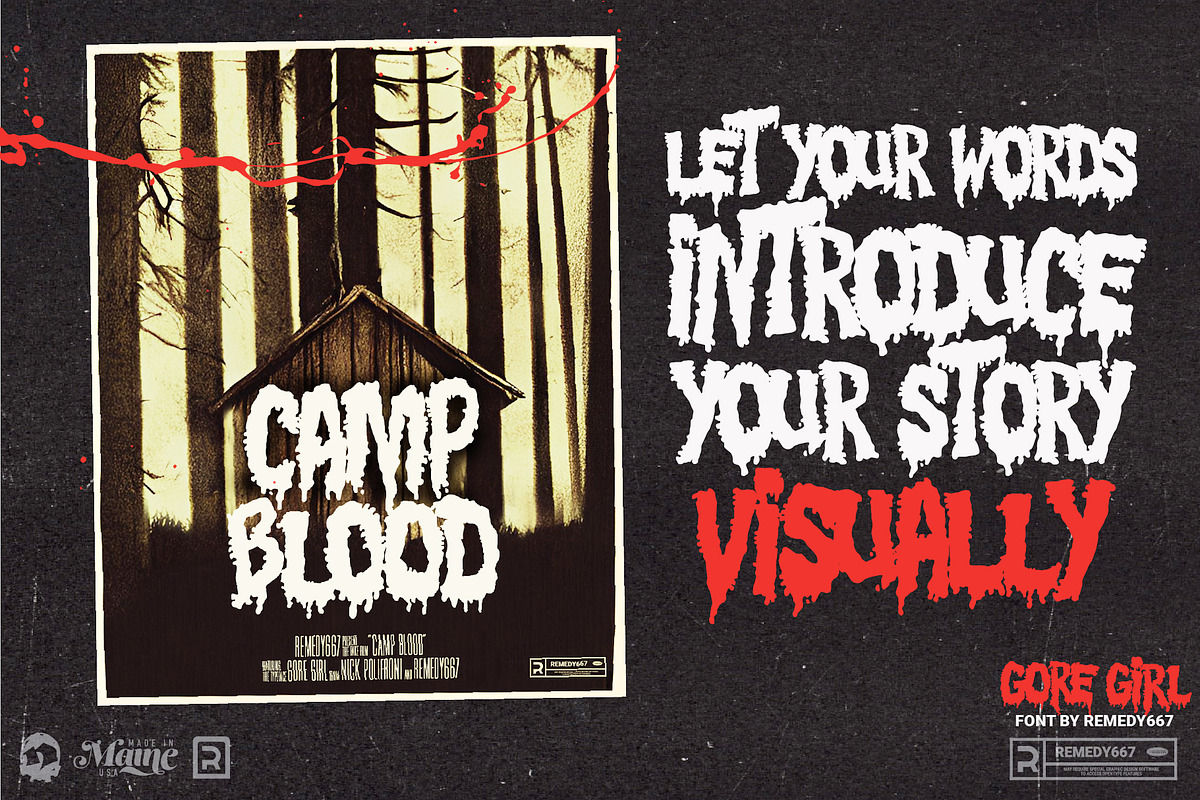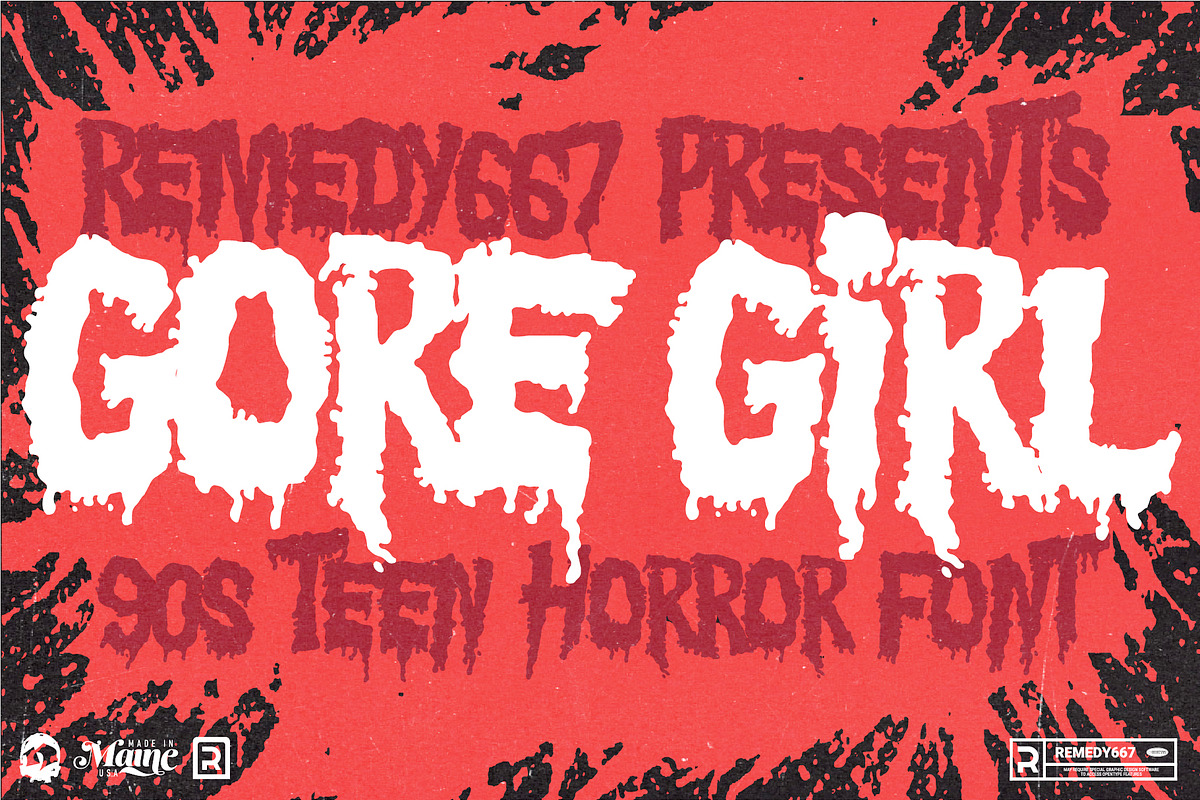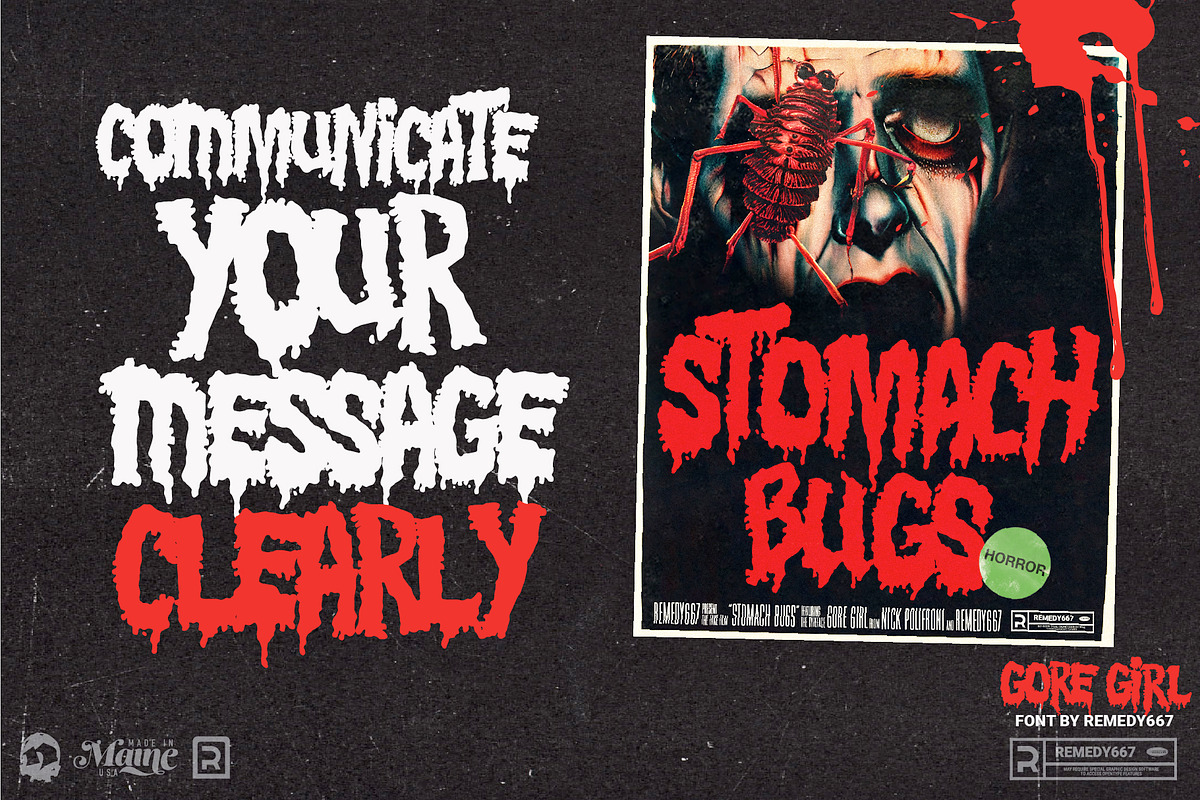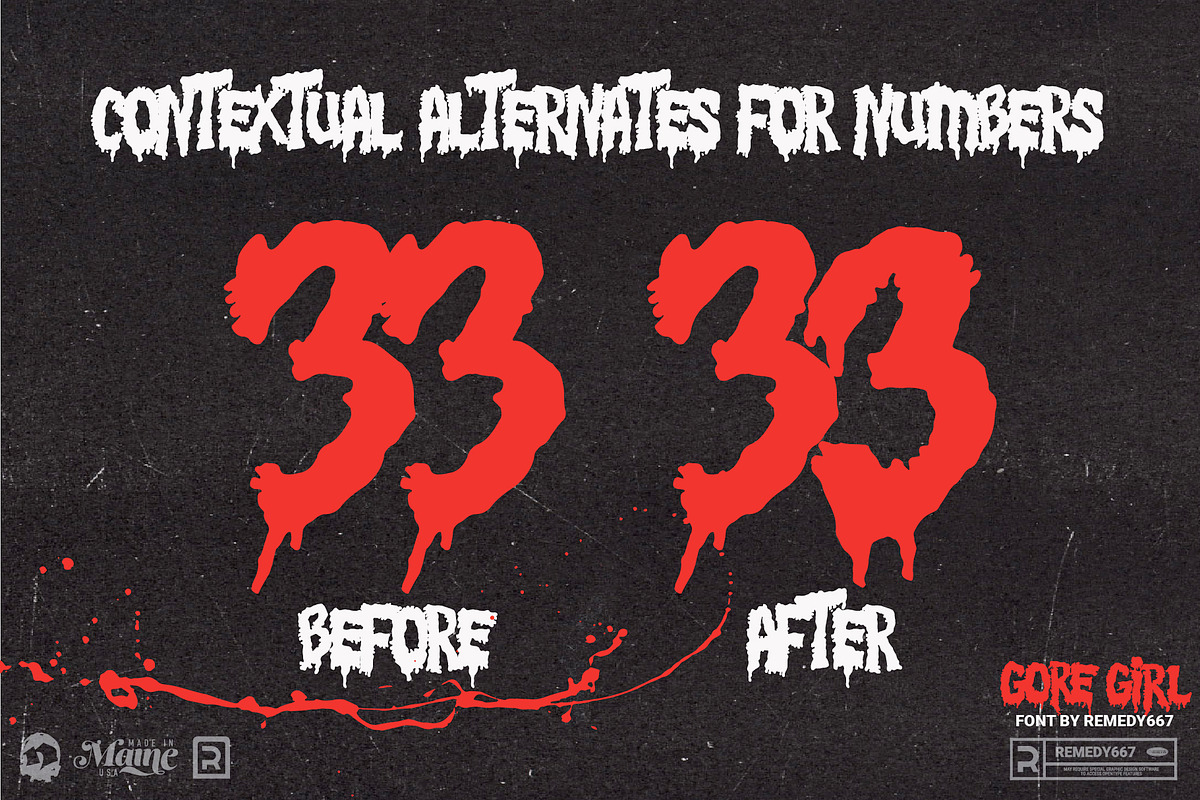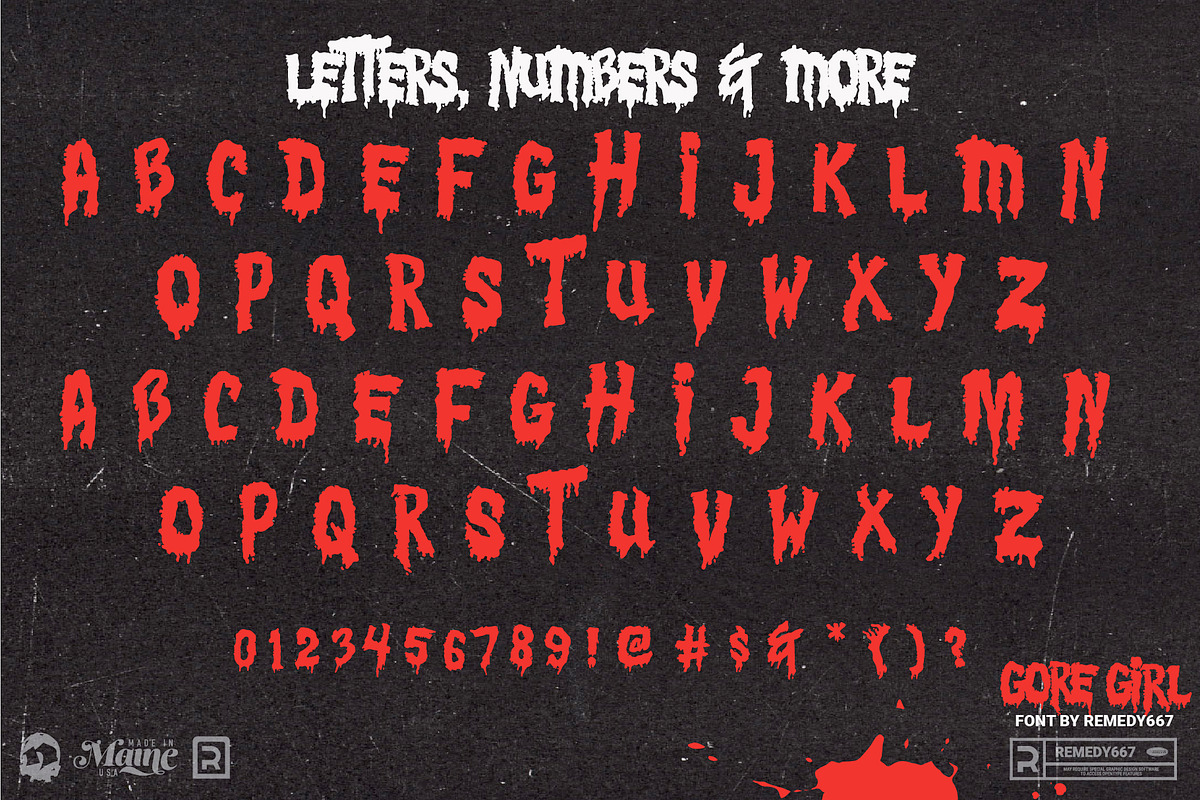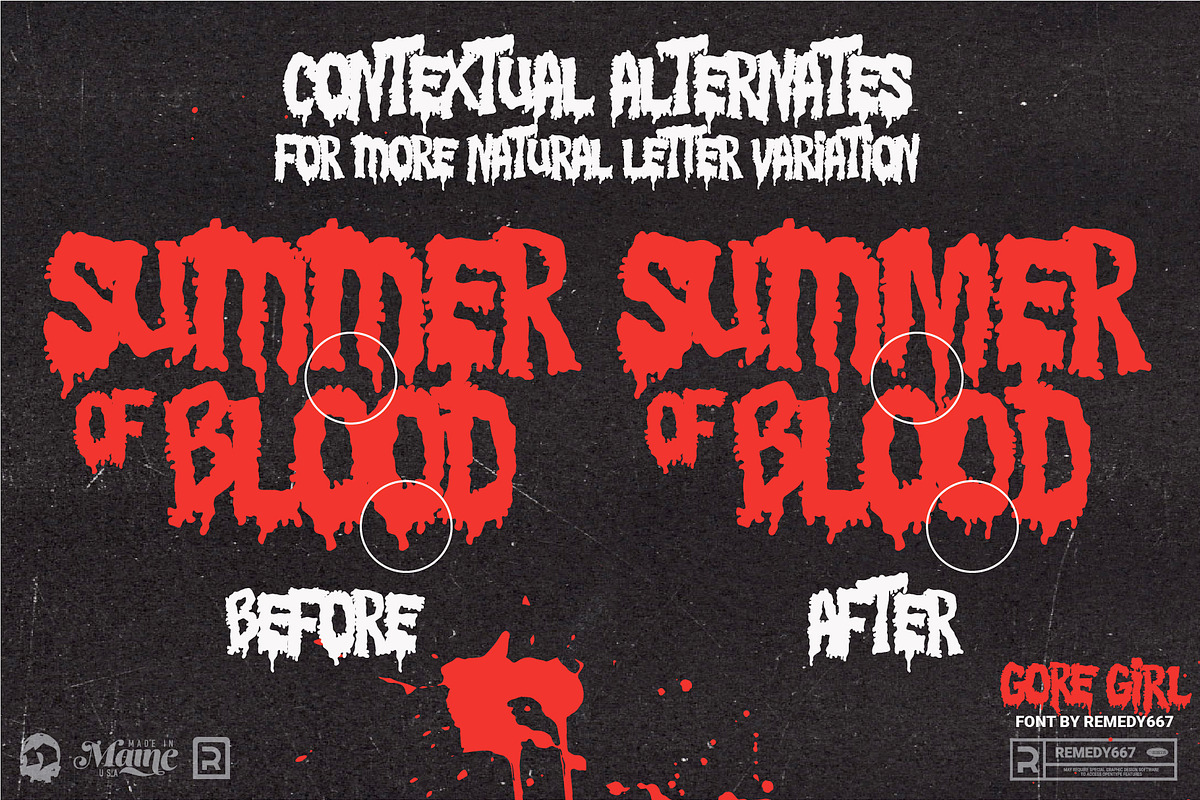
Gore Girl - 90s Teen Horror Font
Are you ready for a scream? Gore Girl is your one-stop font for all the horror your heart desires. Inspired by teenage horror novels from the 90s, Gore Girl will keep you on the edge of your seat.
Unleash your creativity and give your designs an unforgettable look with Gore Girl! Our Doubles Elimination feature is great for vintage posters, t-shirts, logos, and more – with menacing letterforms and spooky numbers that are sure to make a statement. Get ready to bring some horror to your designs – Gore Girl is here!
Give your projects the splatter of life your fans love. Step into the darkness and show off your love for horror with Gore Girl today!
- Doubles Elimination for letters and numbers
- Inspired by 90s Teen Horror Novels
- Perfect for Everything